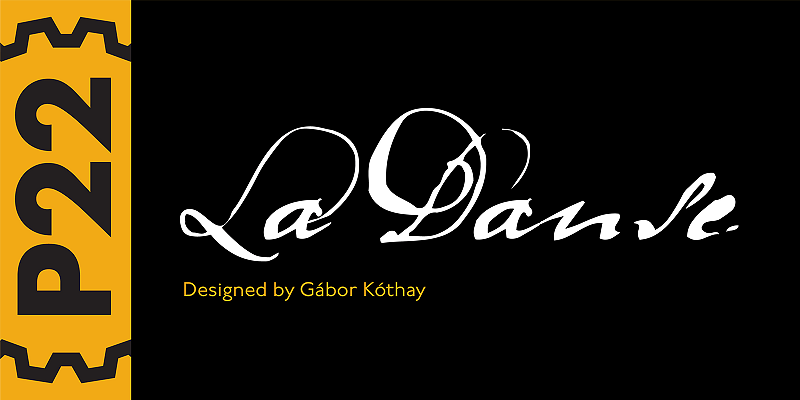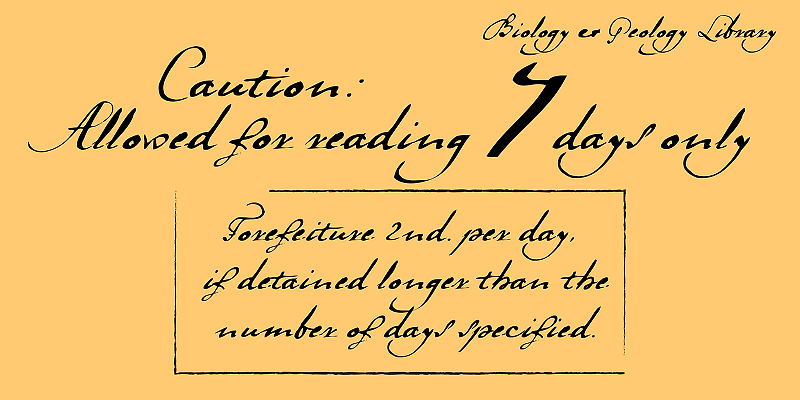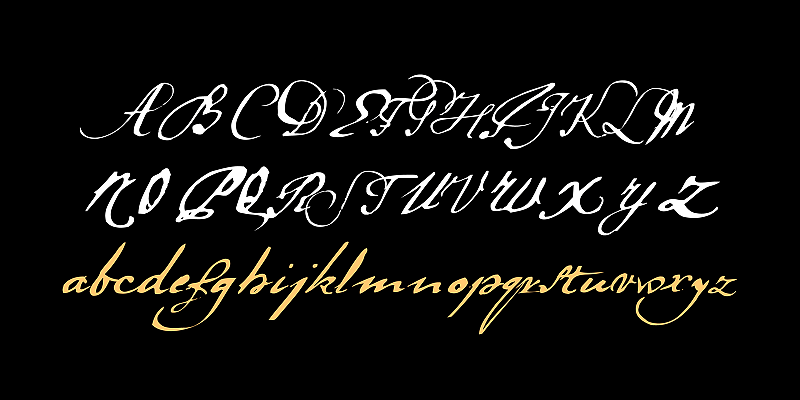
LaDanse is a facsimile font, based on the manuscript of an inventory found in a rare Type Specimen of the Jesuit Academy Press of Tyrnavia (1773). The manuscript was written in an archaic Latin alphabet therefore some modern interpretations have been inserted.